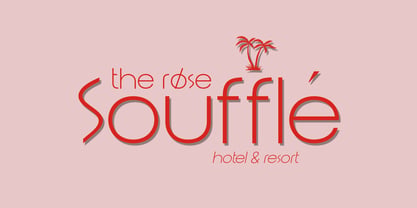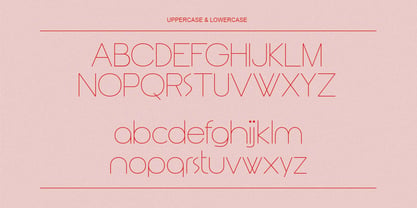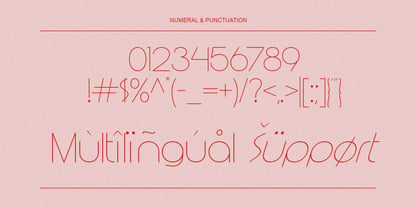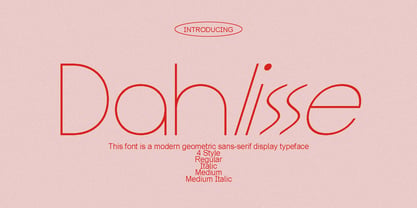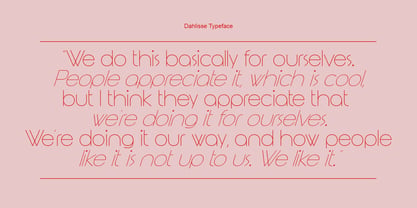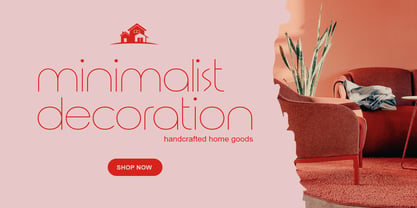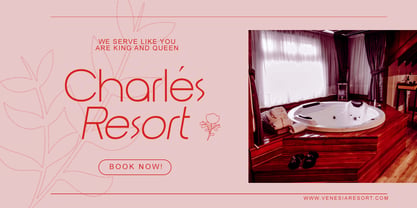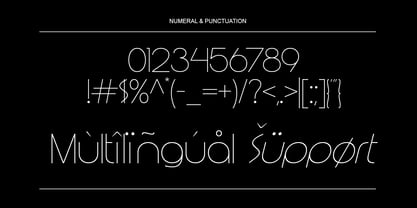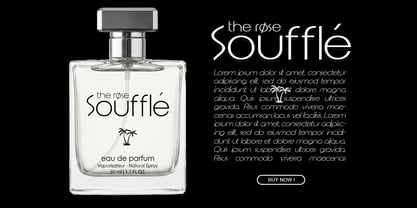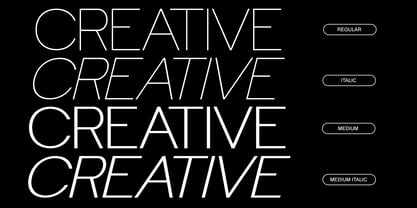
Dahlisse
by Ceeskiiw
Dahlisse is an ultra-light geometric sans-serif display font featuring monoline strokes, Art Deco-inspired proportions, and minimalist elegance. Ideal for fashion branding, editorial design, luxury packaging, beauty products, and modern visual identities.
This font is a modern geometric sans-serif display typeface characterized by ultra-thin monoline strokes, minimalist construction, and elegant Art Deco influences. The letterforms are built from simple geometric shapes primarily circles, straight lines, and smooth curves creating a clean, sophisticated, and fashionable appearance.